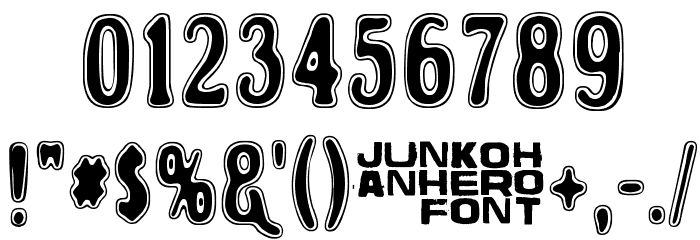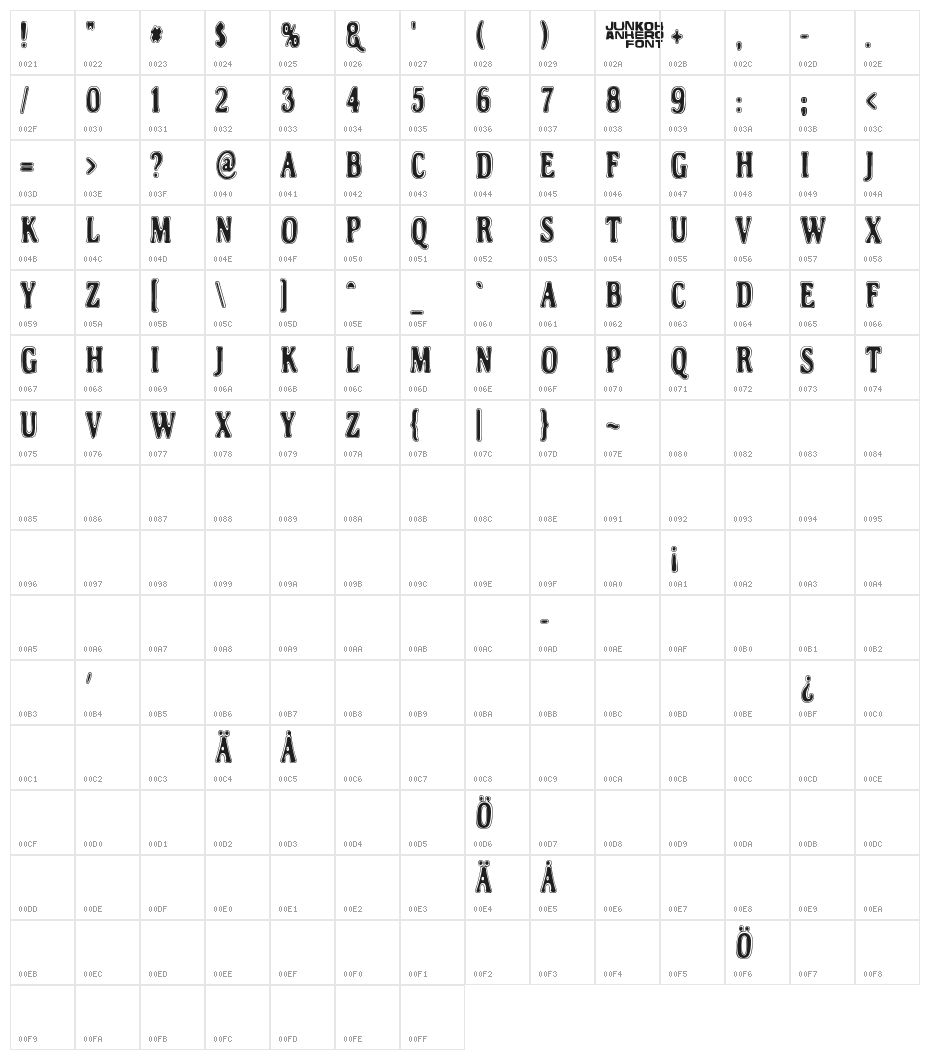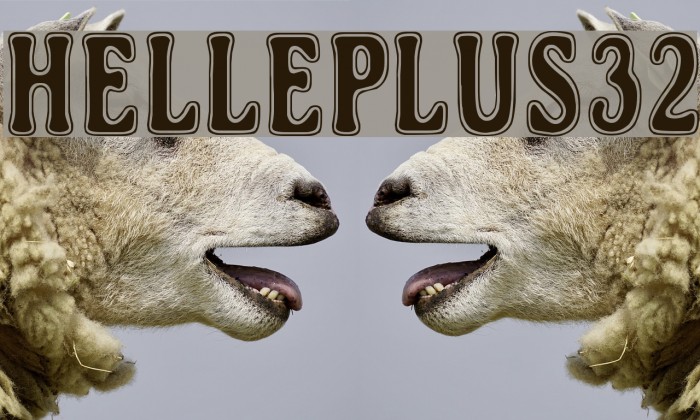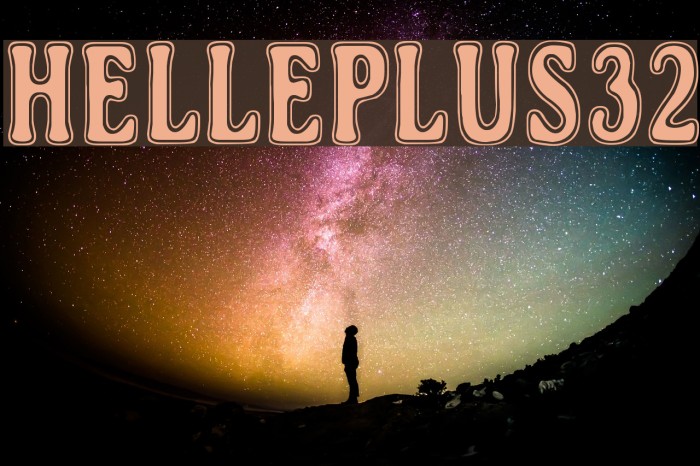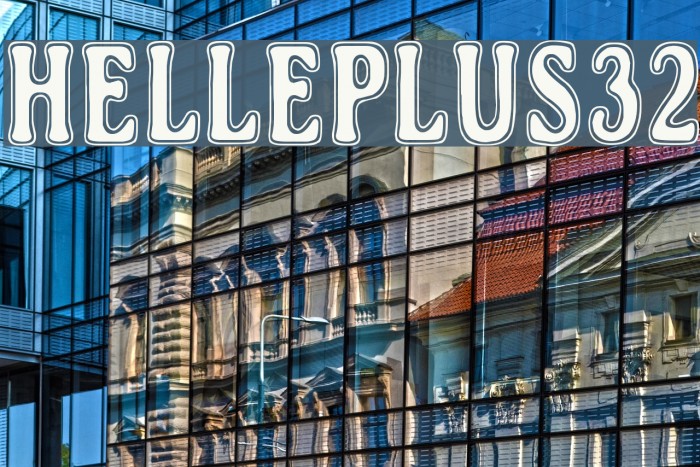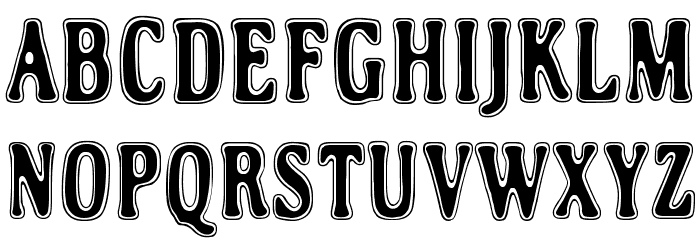
Helleplus32 Font
Helleplus32 Description
This font features a bold, decorative style with a strong, impactful presence. The characters are outlined with a thick black border, creating a striking contrast against the inner white space. The uppercase letters are uniform in height, while the lowercase letters maintain a consistent style, enhancing readability. The numbers and special characters follow the same bold and outlined design, ensuring a cohesive look across all elements. This font's unique style makes it ideal for attention-grabbing designs.
| Proposed Projects | Ideal for posters, logos, headlines, and any design requiring a bold statement. |